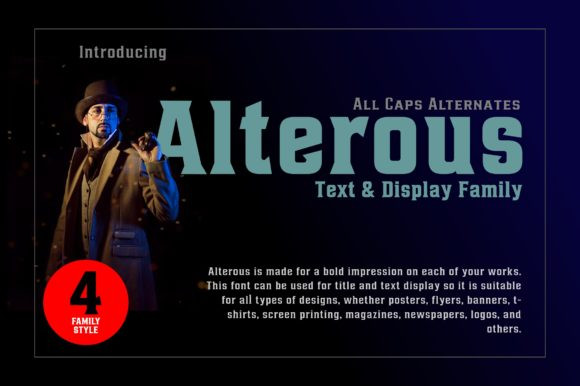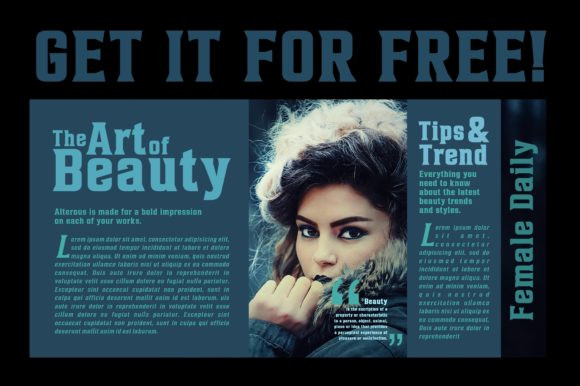
Alterous Font
Alterous is a bold and vintage styled display font. Masterfully designed to become a true favorite, this font has the potential to bring each of your creative ideas to the highest level!